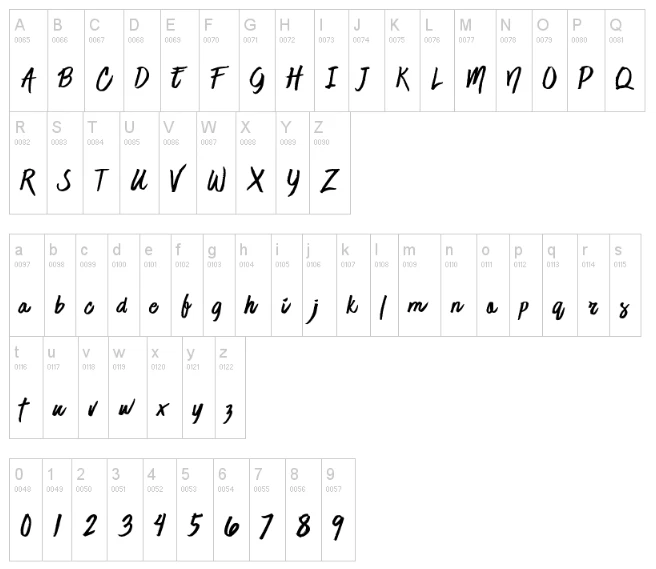
We always strive to present you to the best fonts, and today is no exception. It’s a Script and Brush font that you’ll love using for your next project. Introduction to Jaime Blues Font! Premiere Graphics created and shared Jaime Blues. Jaime Blues is a contemporary handwritten sans serif typeface that works well with the primary font. Jaime blues was created and transmitted in the most efficient way possible. This is a non-feminine cursive font.
The layout of the Jaime blues font is unique. It isn’t the most convenient typeface for photograph designers, but if you’re a photographer who wants to add text to your photographs, it’s a good option. If that’s the case, this typeface will be a huge draw for you.
Jaime Blues Font View
| Name | Jaime Blues Font |
| Style | Script |
| Designer | Premiere Graphics |